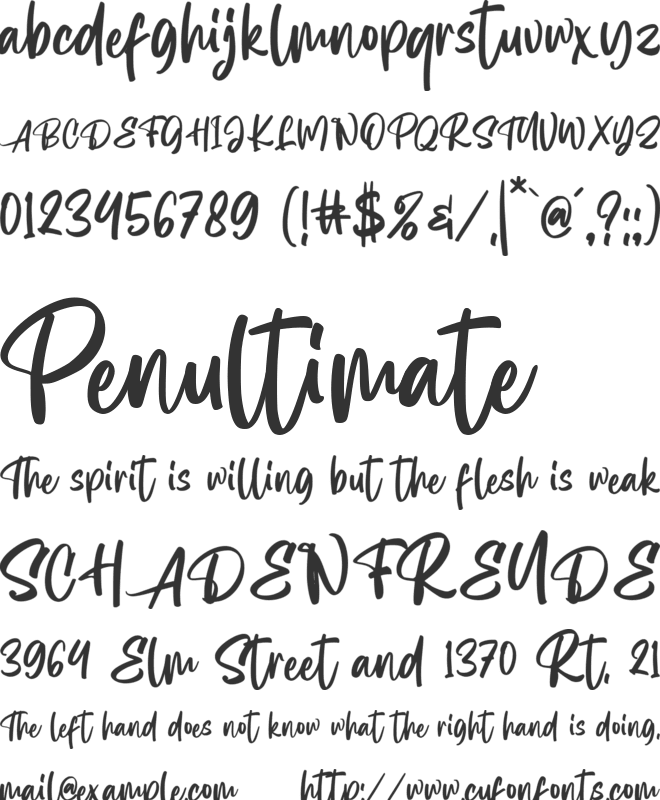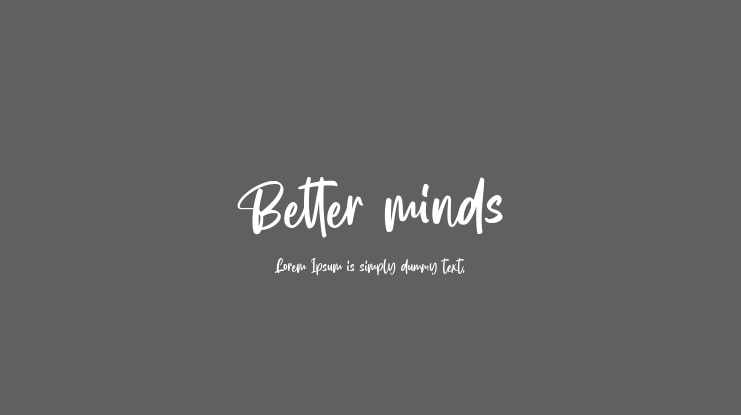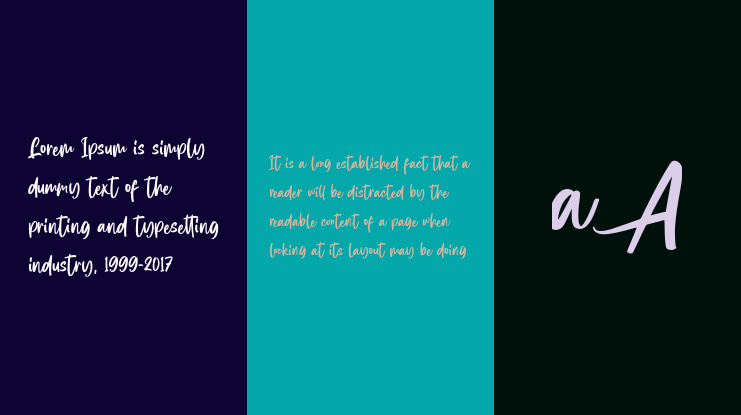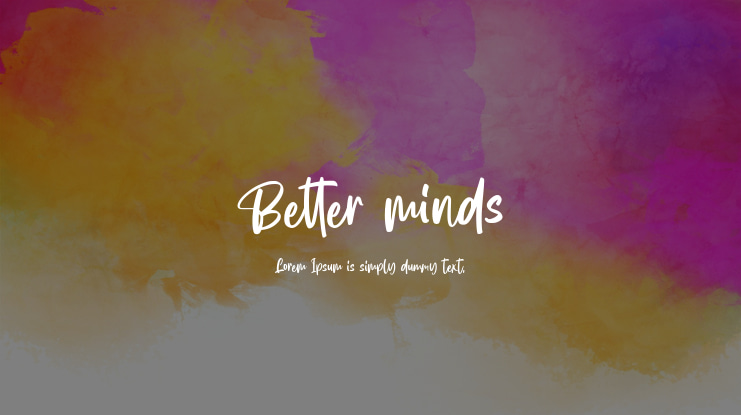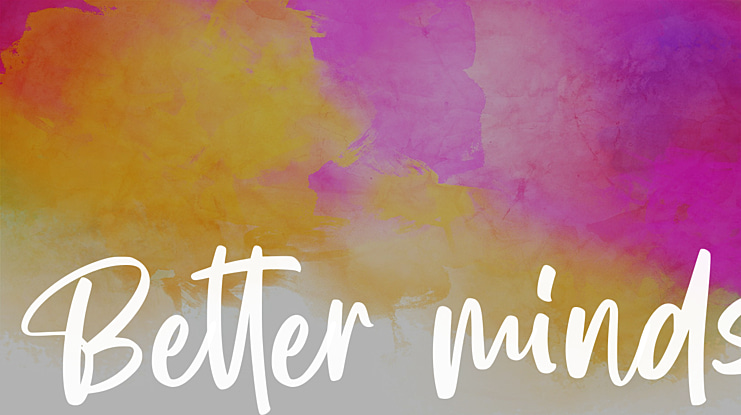
Better minds Font
Here is my new font Better minds.
Better minds is consisting of a fashionable handwritten-style script make looks elegant, and stylish.
This font was created to look as close to a natural handwritten script as possible by including 15 ligatures.
More than 200 of glyphs
15 Standard Ligatures
swash